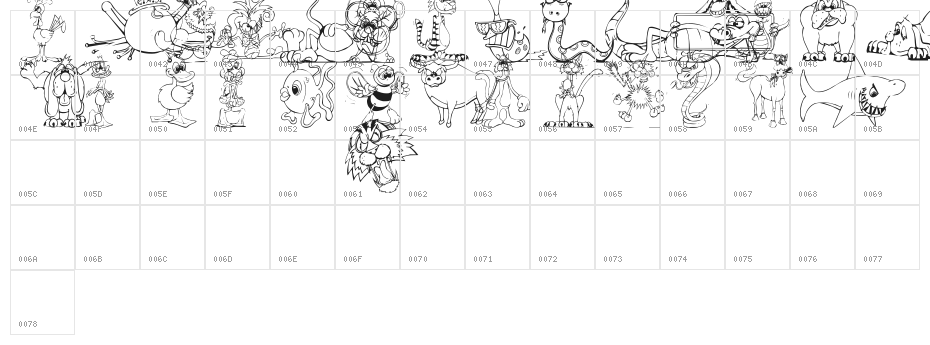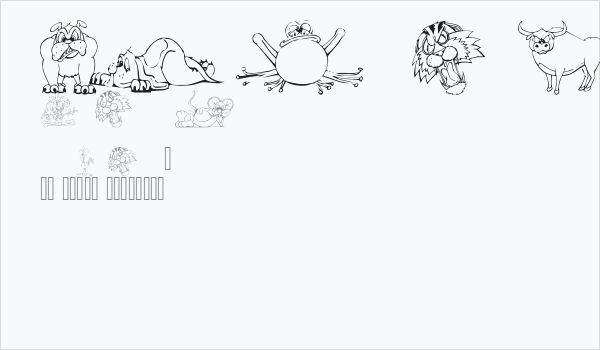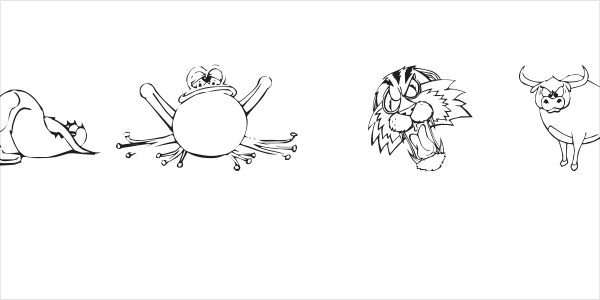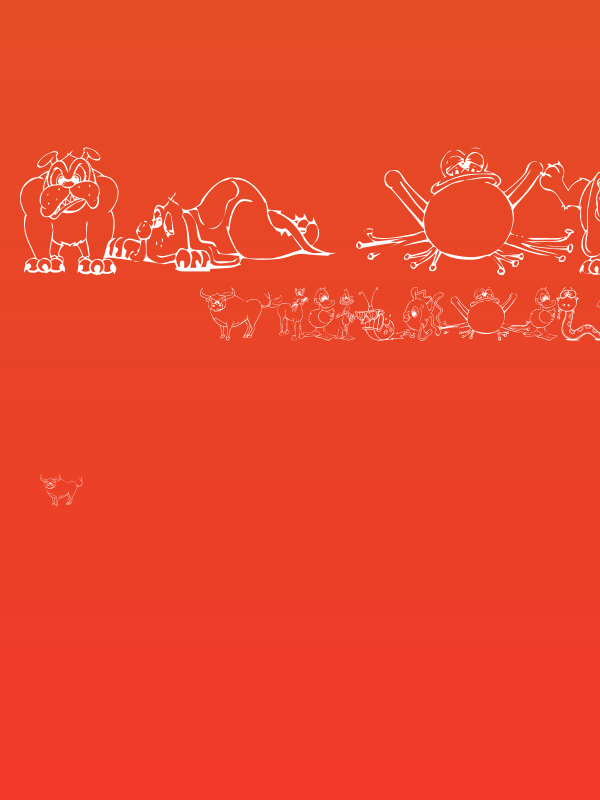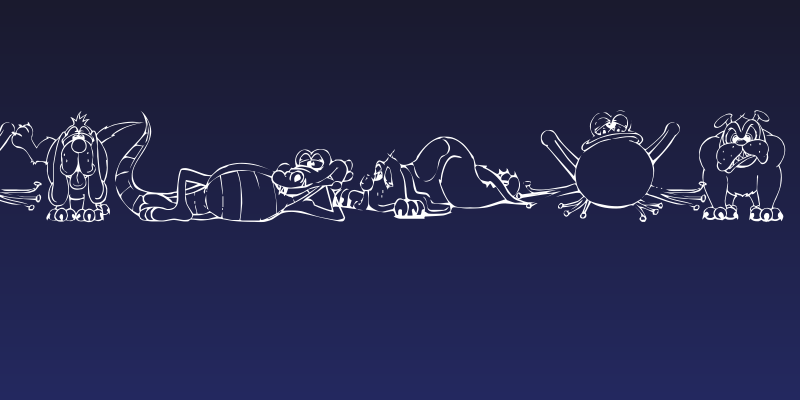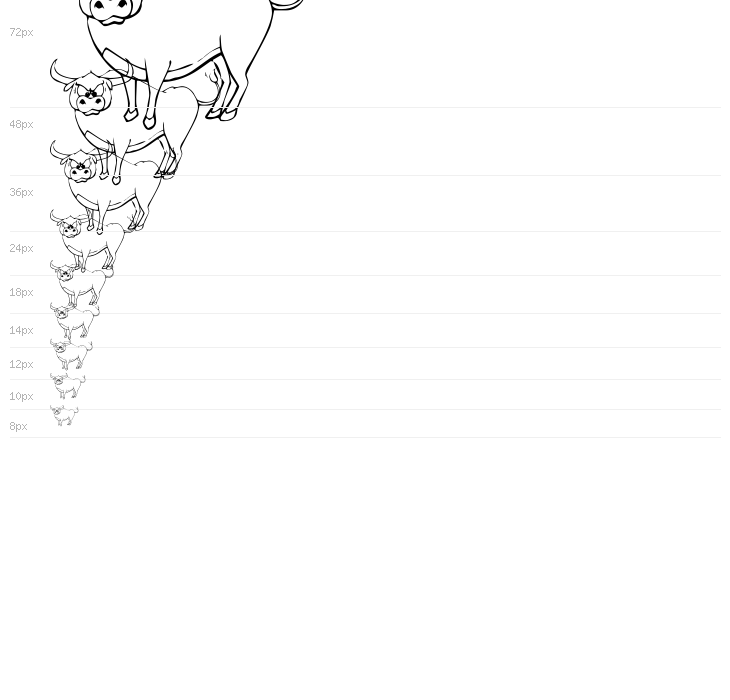
LM Animal Toons Font
LM Animal Toons Description
This is not a traditional font but rather a collection of cartoon-style animal illustrations. Each character is represented by a unique and playful animal drawing, showcasing a variety of expressions and poses. The designs are whimsical and detailed, capturing the essence of each animal with exaggerated features and humorous elements. This set is more suited for creative and decorative purposes rather than standard text representation.
| Use Case | Decorative elements in design projects, not suitable for text. |
| Proposed Projects | Ideal for children's books, playful posters, educational materials, and creative design projects that require a fun and engaging visual element. |